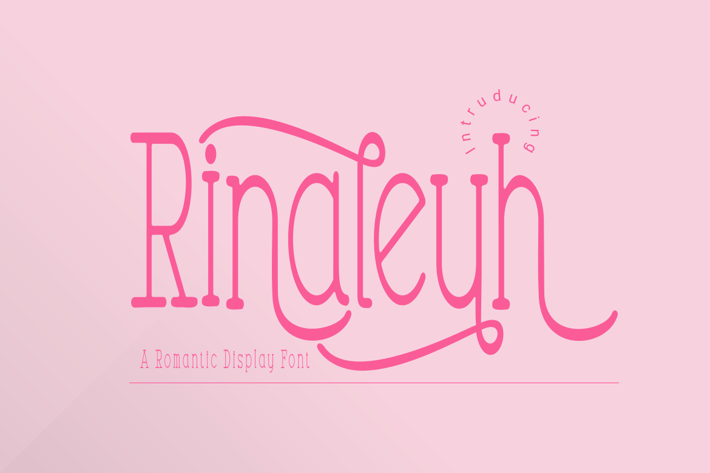
Rinaleyh - Romantic Display Font
Proudly present our new product Rinaleyh - Romantic Display Font
is a modern and authentic font. Perfect for professional needs and product branding, this font is suitable for any branding project such as quotes, logos, blog headers, posters, ribbons, letters, invitations, stationery, etc... Designed to be versatile and flexible that can be used on a variety of projects and media. extraordinary in a variety of contexts.